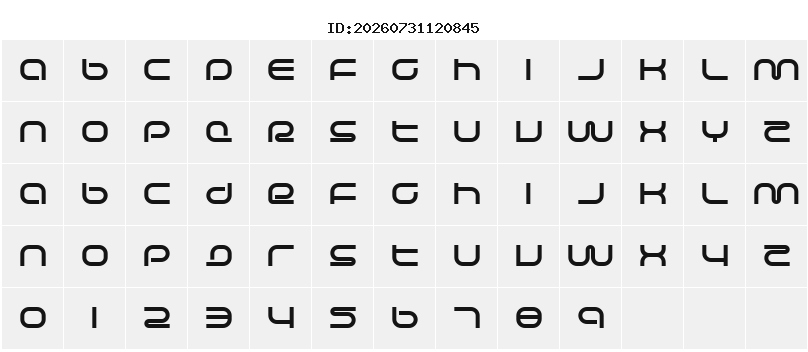
Life Support Preview
• Font Name: Life Support
• Designer: Andreas Nylin
About Life Support.ttf
Life Support.ttf is a modern, elegant sans-serif font designed for ultimate readability and visual harmony. Perfect for branding, headlines, web design, and print materials.